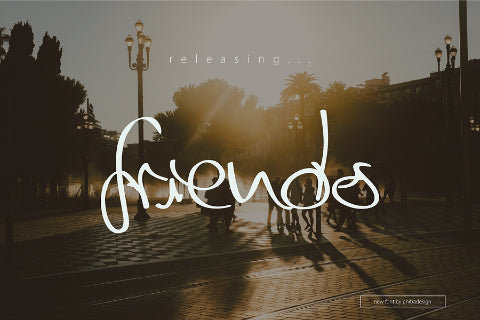
Free Friends Script Typeface
Download and enjoy this free friends script typeface. Cool typeface to showcase your designs in a modern way. Go give some love to Free Design Resources for creating this top-notch free typeface. Amaze your fellow designers and create stunning designs with this cool font.